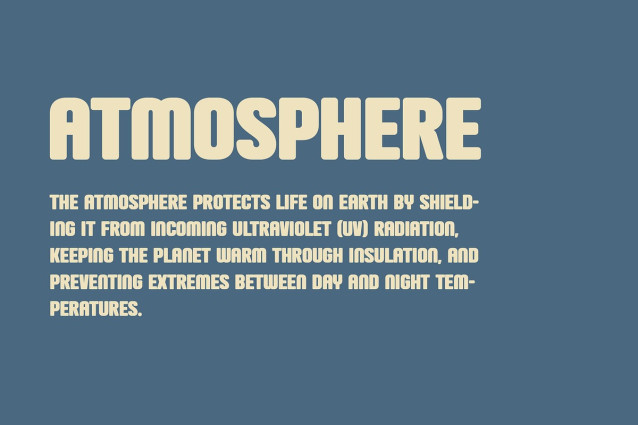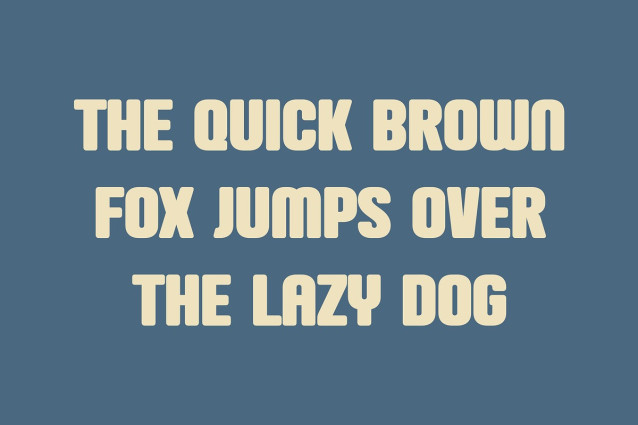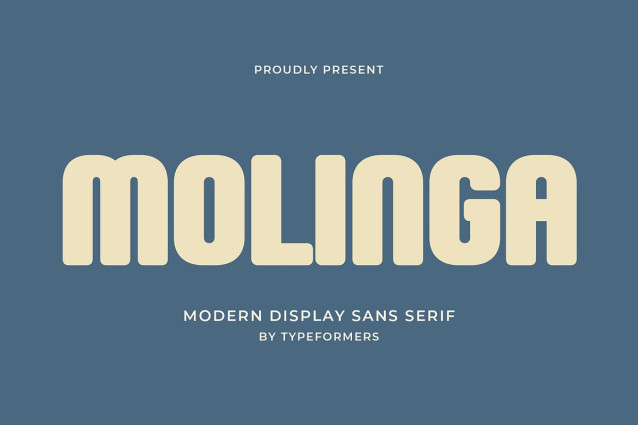
Molinga Font
Molinga Font – Modern Display Sans Serif, is a modern and simple font, best used as a display for headings, logos, branding, magazines, product packaging and invitations.